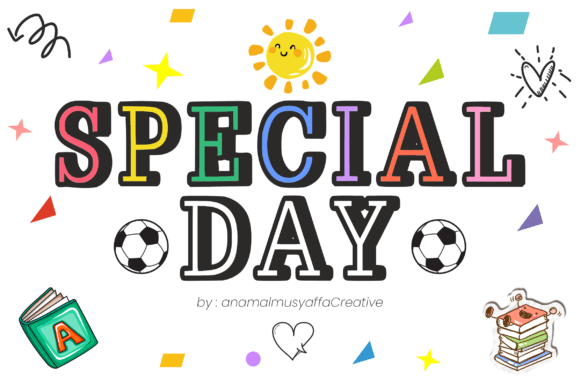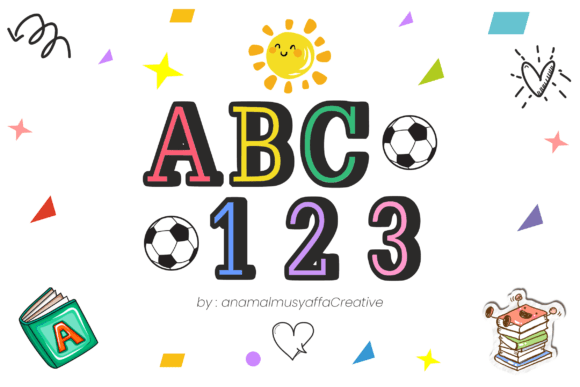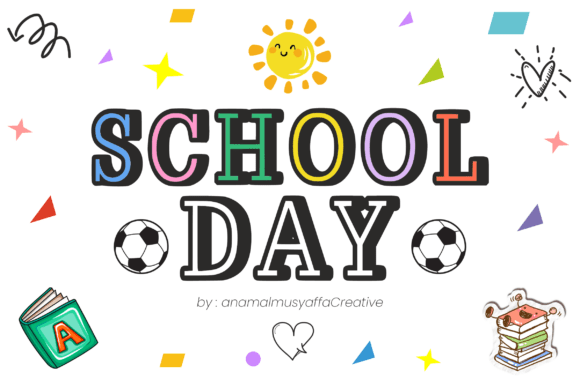
Introduction to Schoolday Regular Font
β€œSchool Day” – A Boldly Playful School-Inspired Outline Font Step back into the cheerful buzz of classroom creativity with School Day , a lively reimagining of school-style outline fonts.
Every letter exudes bold individuality and playful energy, making your designs pop with character and charm Whether you’re crafting standout prints for t-shirts, mugs, and tote bags, or adding a fun, youthful edge to animations and comic book headlines, School Day delivers personality in every stroke.